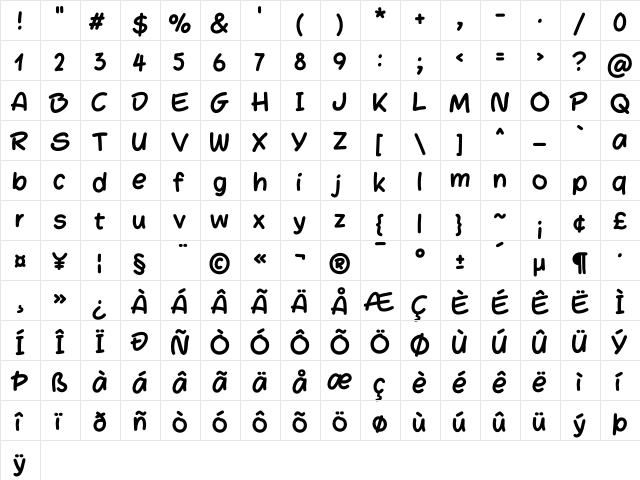
Mulled Wine Season Medium
| Foundry | Roland H߳e Design |
| Designer | Roland H߳e |
Mulled Wine Season is a composed and adaptable typeface that performs quietly and consistently across a wide range of design contexts.